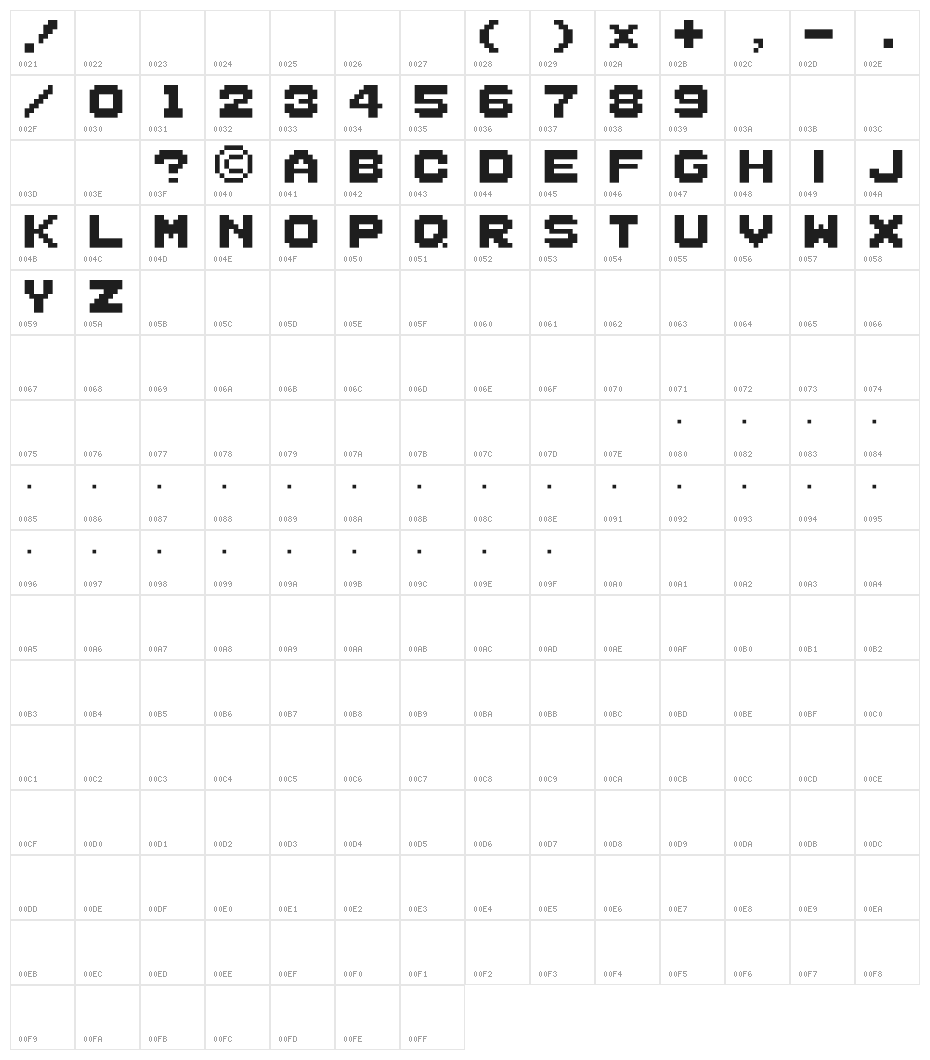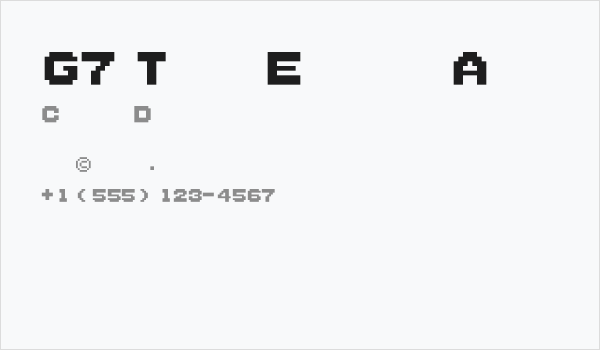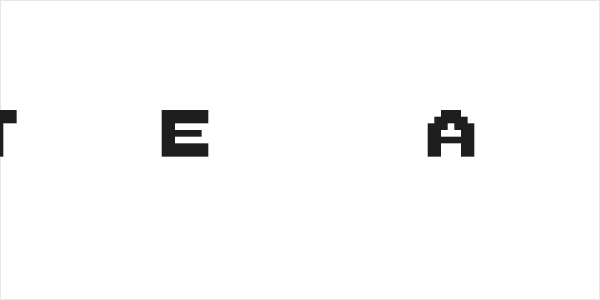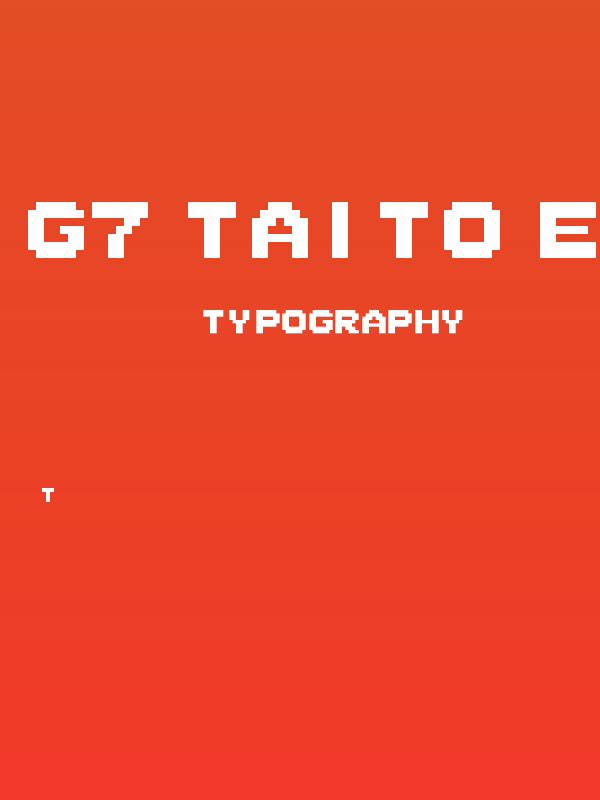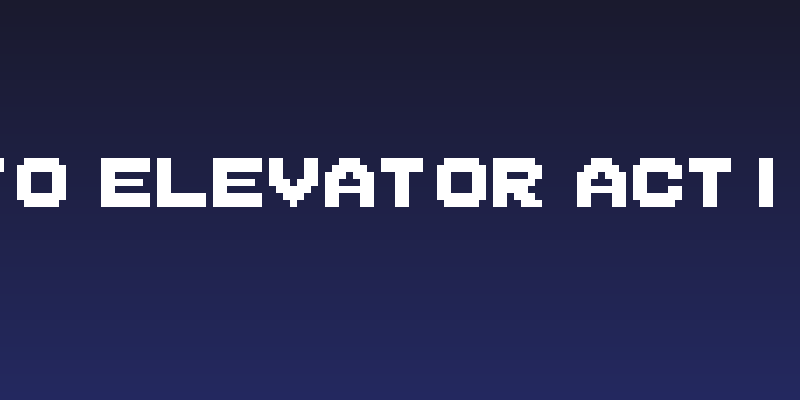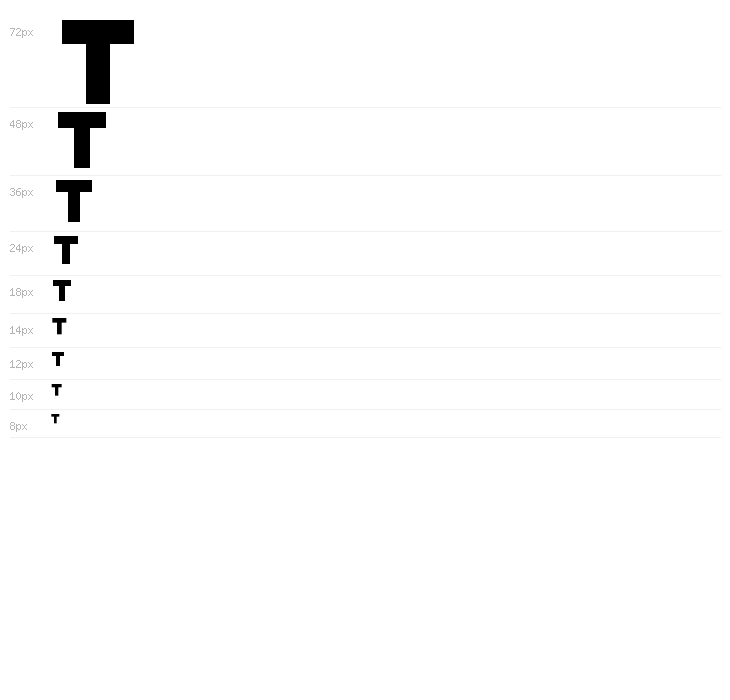
G7 Taito Elevator Action etc. Font
G7 Taito Elevator Action etc. Description
This font features a bold, pixelated style reminiscent of classic arcade games. Each character is constructed with a blocky, grid-like appearance, giving it a distinctly retro and digital feel. The uppercase letters are uniform in height and width, maintaining a consistent geometric form. The numbers and special characters follow the same pixelated design, ensuring a cohesive look across all glyphs. This font's nostalgic aesthetic is perfect for projects that aim to evoke the charm of early video games or digital displays.
| Overall Style | Retro, Digital |
| Use Case | Logos, Headlines, Digital displays |
| Proposed Projects | Ideal for retro video game designs, digital art projects, or any creative work that seeks to capture the essence of classic arcade aesthetics. |